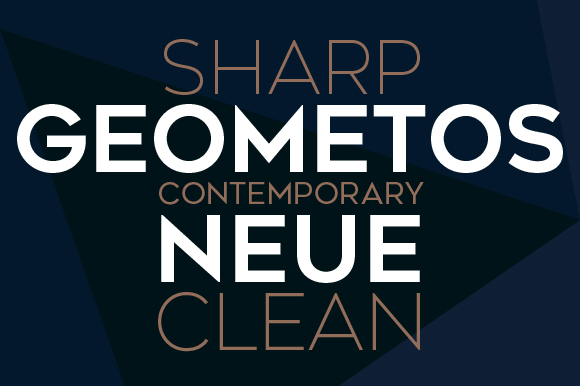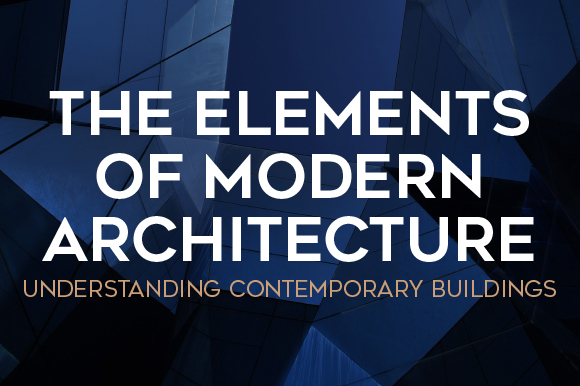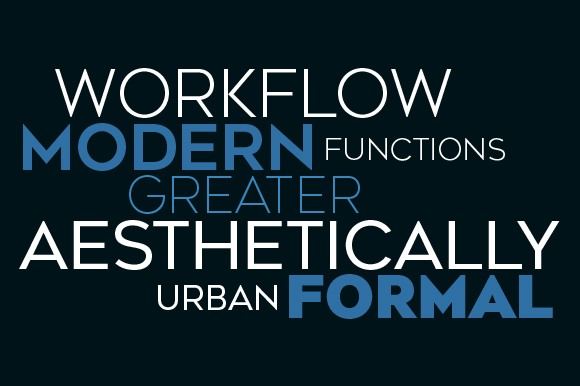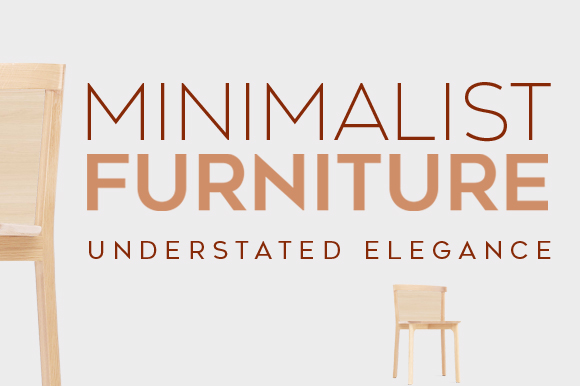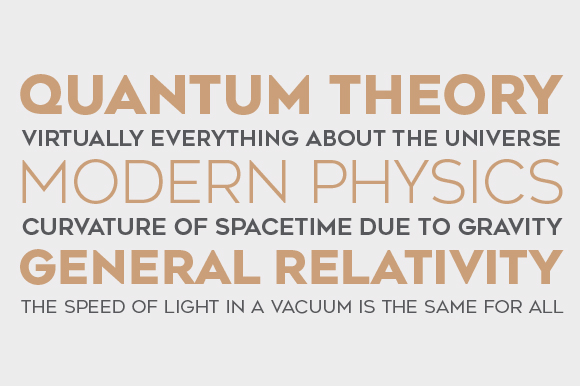
Geometos Neue is a geometric sans-serif typeface which comes in seven weights. An all caps display font family, Geometos Neue has a clean, sharp and emphatic form especially suitable for headlines, headings, branding, posters, packaging, titles and logos.